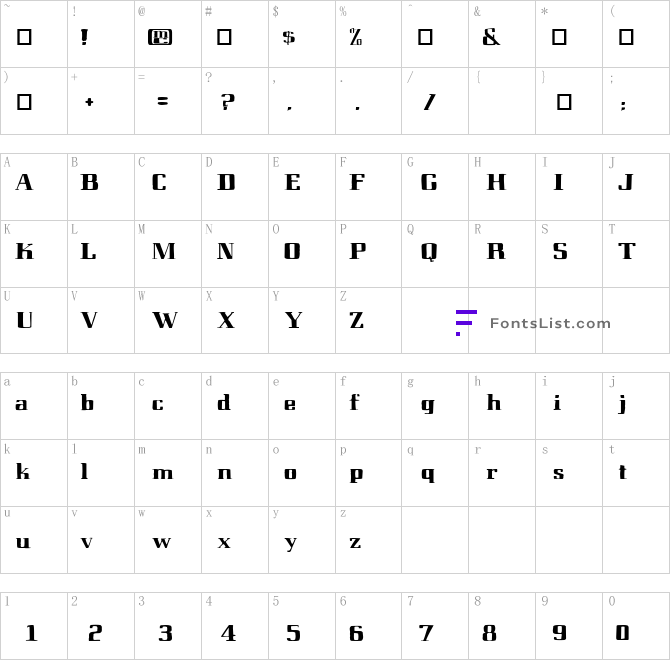
- Font Name:Bastard
Bastard-copy-1-.ttf is a very beautiful artistic font, Bastard-copy-1-.ttf is widely used in the design and printing of various books and pictures,Bastard-copy-1-.ttf has a strong visual impact,Bastard-copy-1-.ttf is a commonly used font in newspapers, magazines and books, and is used in posters, e-commerce Poster design, store design, logo design, font design and other fields.Bastard-copy-1-.